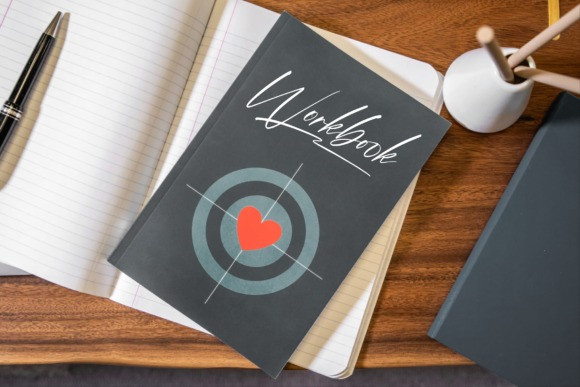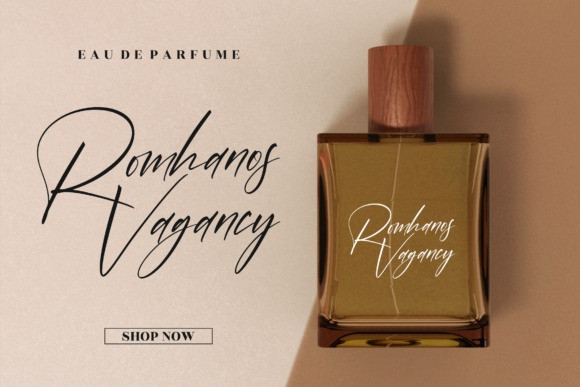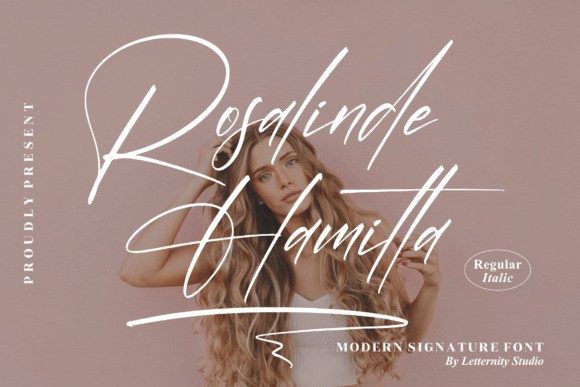
Rosalinde Hamilta Font
Rosalinde Hamilta Font is a distinct graceful script font. Fall for its ravishing style and use it to create gorgeous designs. This font is PUA encoded which means you can access all glyphs and swashes with ease!